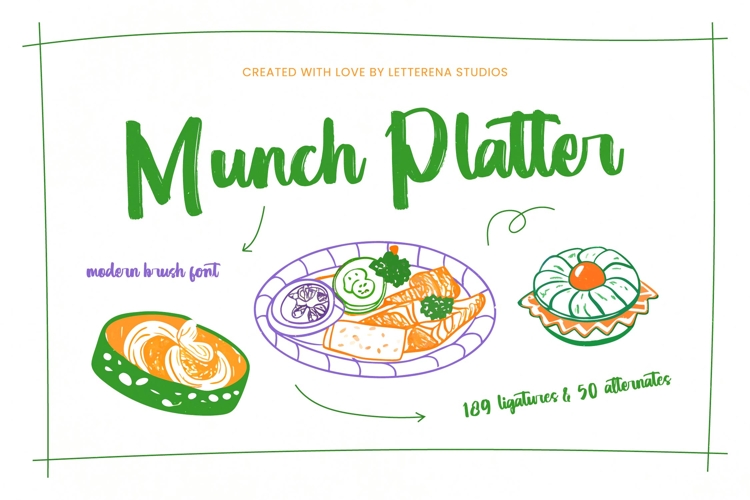
Munch Platter - Modern Brush Font
Capture the essence of Munch Platter - Modern Brush Font, a truly captivating typeface designed to infuse your projects with immediate energy and authentic charm. This modern brush font exudes a vibrant, handcrafted aesthetic, perfect for conveying warmth and personality. Its organic strokes and lively rhythm ensure your message stands out with an unmistakable touch of human creativity, making every design feel genuinely unique.
Unlock unparalleled creative potential with the rich feature set of Munch Platter - Modern Brush Font. Boasting an impressive 189 ligatures and 50 alternates, this font empowers designers to craft truly bespoke typography that avoids repetition and feels genuinely handwritten. These extensive stylistic variations allow for dynamic text layouts, ensuring each design is both cohesive and extraordinarily expressive.
Expand your design reach globally with the inherent adaptability of this exceptional typeface. With its extensive multilingual support, Munch Platter - Modern Brush Font adapts seamlessly across global markets, making it incredibly versatile for international projects. This feature ensures your brand message resonates effectively with diverse audiences worldwide, maintaining its characteristic warmth and professional appeal.
Munch Platter - Modern Brush Font is the ideal choice for projects demanding both impact and approachability. It is perfectly suited for food branding, restaurant menus, packaging design, engaging social media graphics, playful invitations, and distinctive editorial layouts. Elevate your creative endeavors by choosing Munch Platter - Modern Brush Font to inject every design with a memorable, handcrafted touch that truly delights.